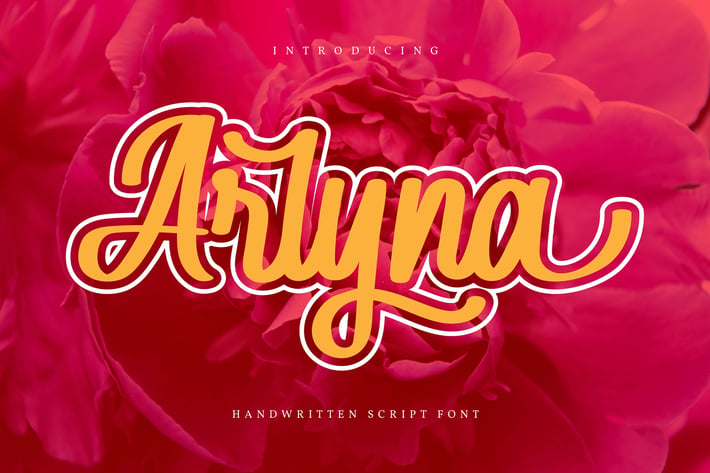
Arlyna | Handwritten Script Font
Arlyna | Handwritten Script Font with a calligraphy style, So beautiful on invitation like greeting cards, branding materials, business cards, quotes, posters, and more!